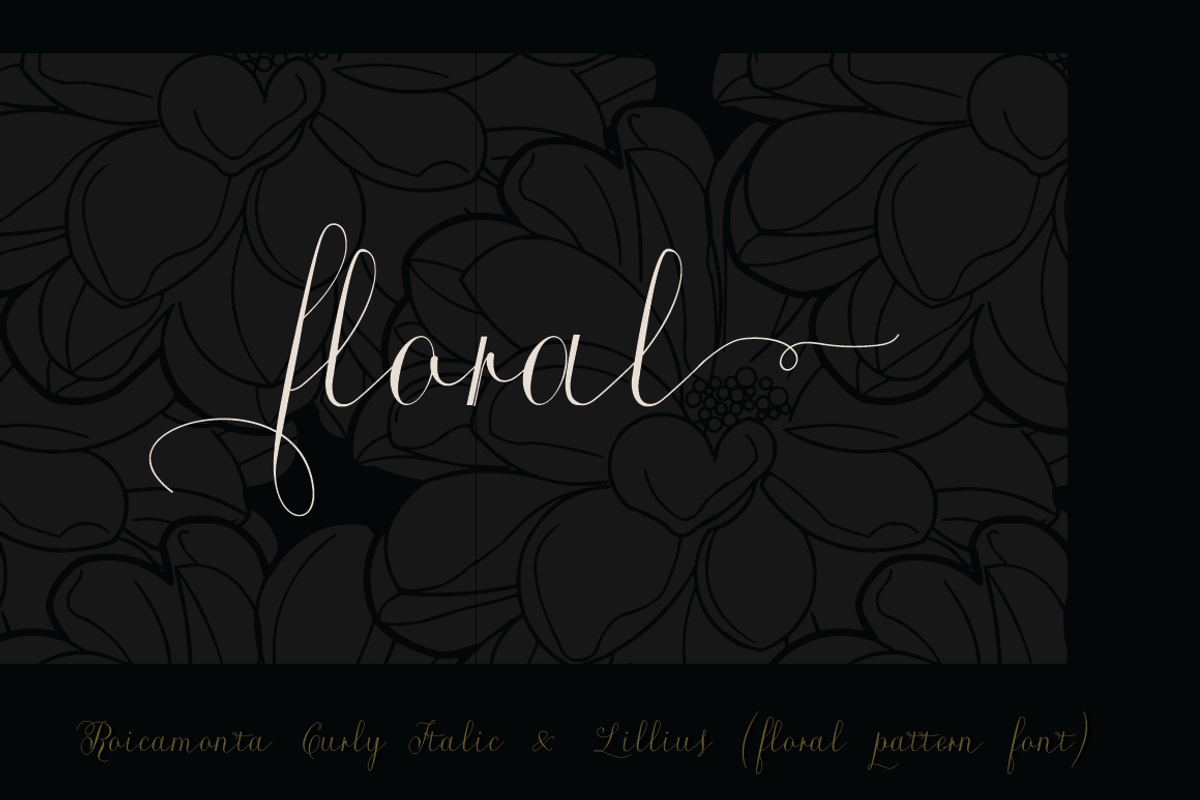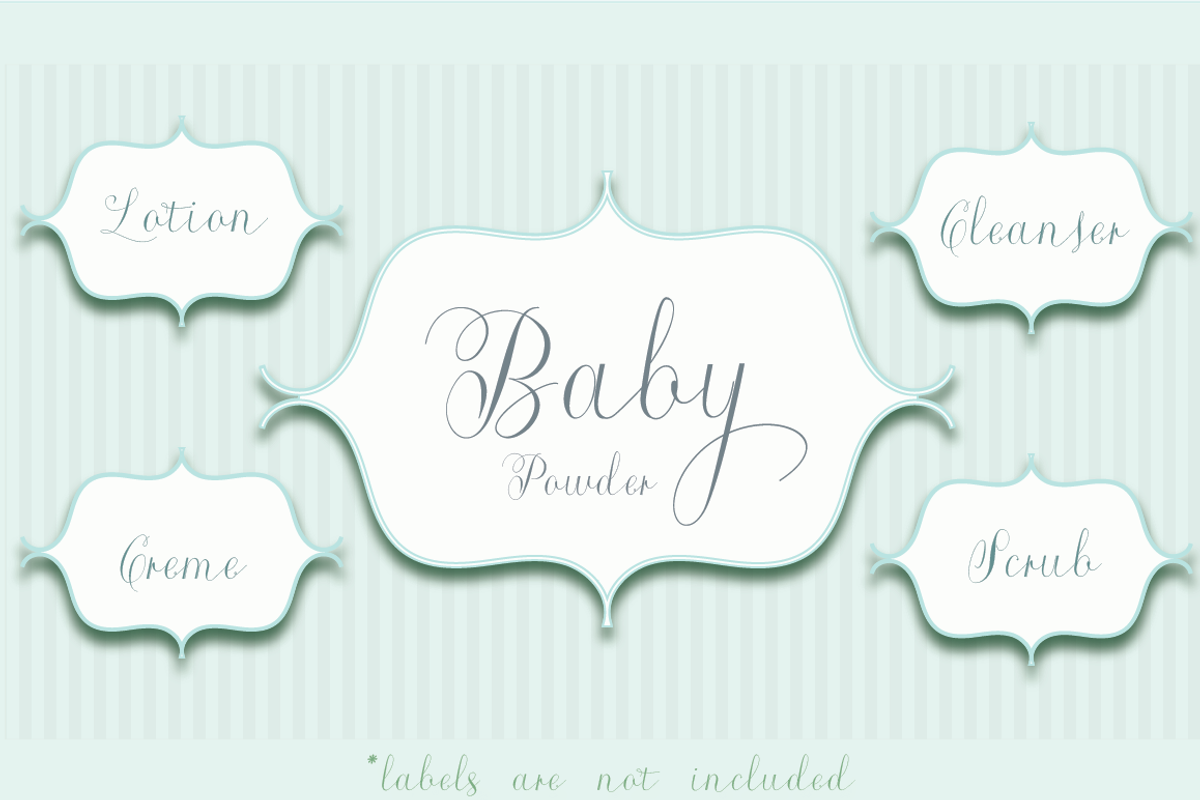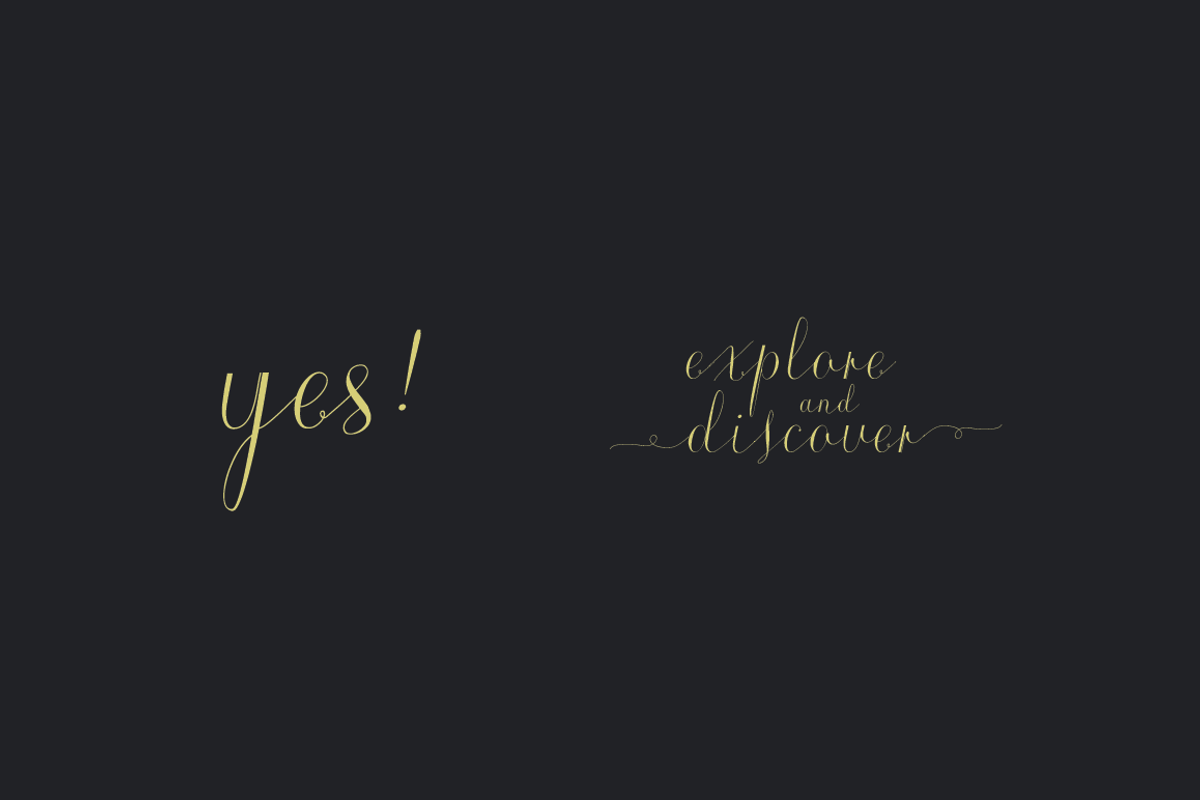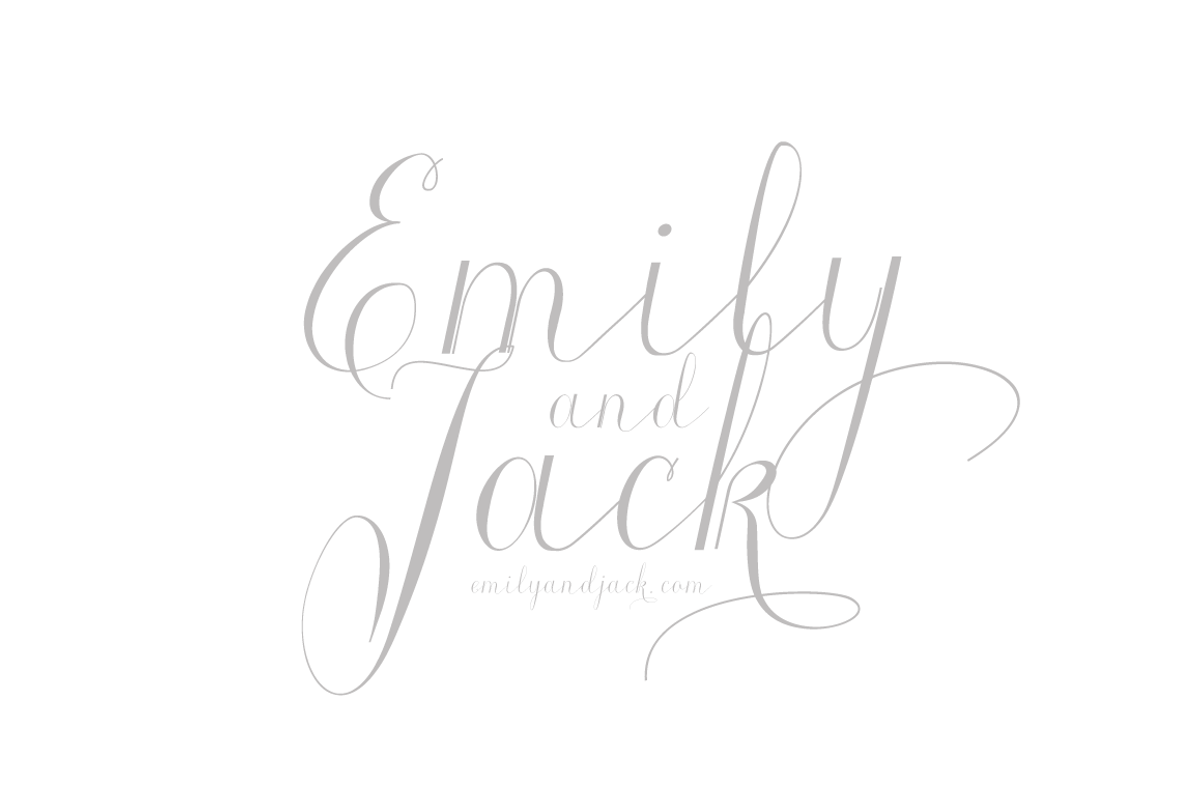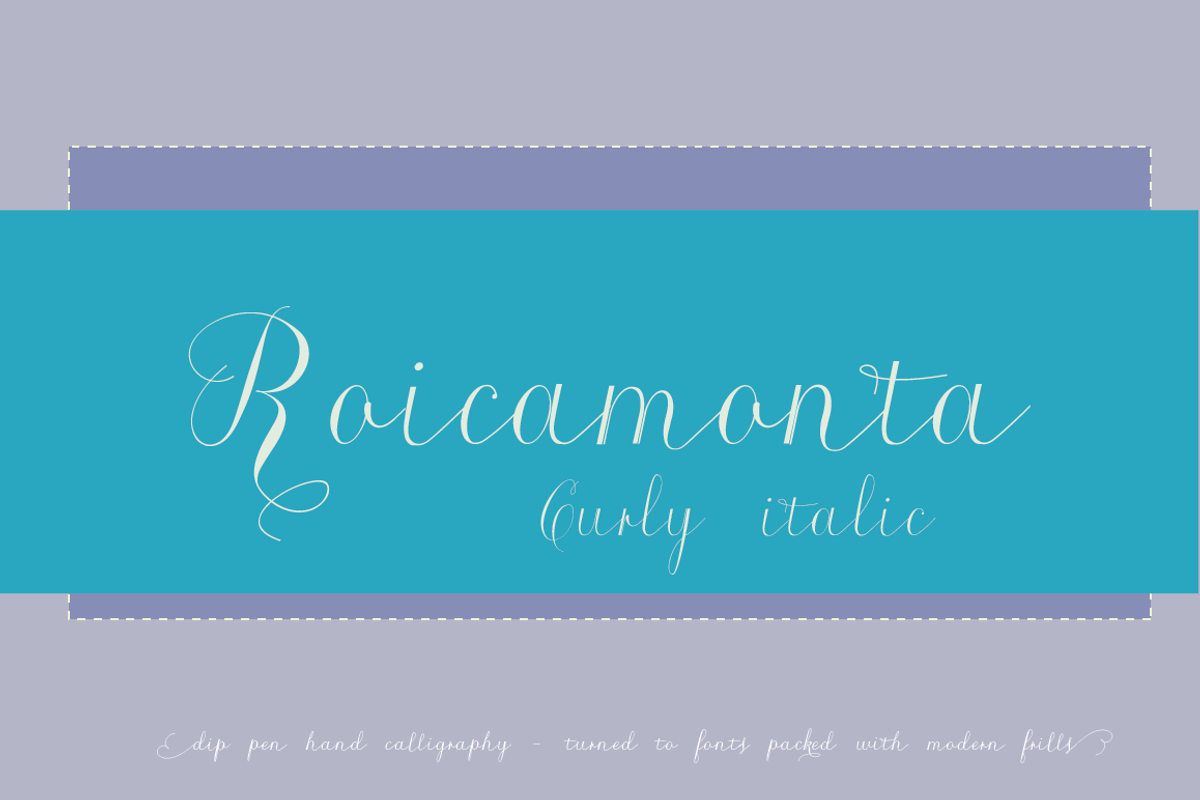
Roicamonta Curly Italic otf font
Roicamonta Curly Italic otf font by Aga Silva is a font selected for branding, posters, packaging, typography.
- This file contains over 1200 glyphs.
- Complete with variety of swashes and fancy ligatures.
- Roicamonta Curly Italic
Why Roicamonta Curly Italic otf font is worth a look
Roicamonta Curly Italic otf font by Aga Silva fits naturally into Branding, posters, packaging, typography.